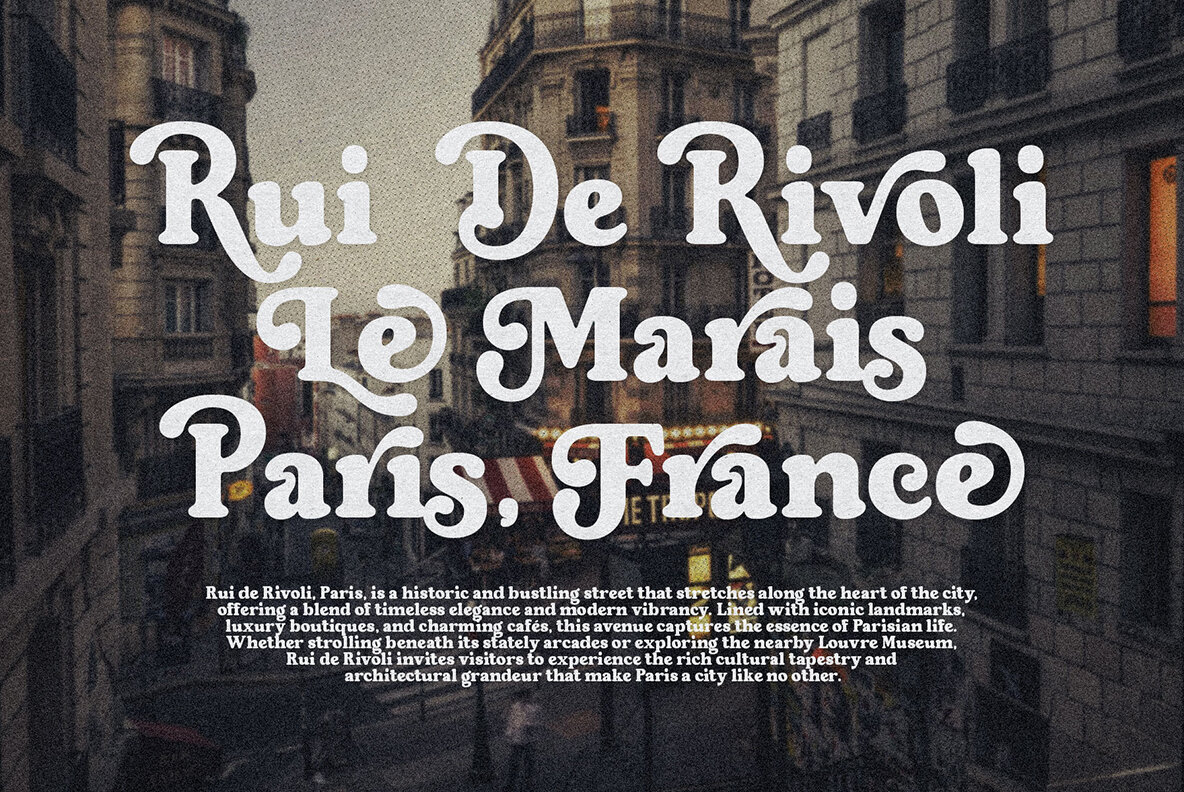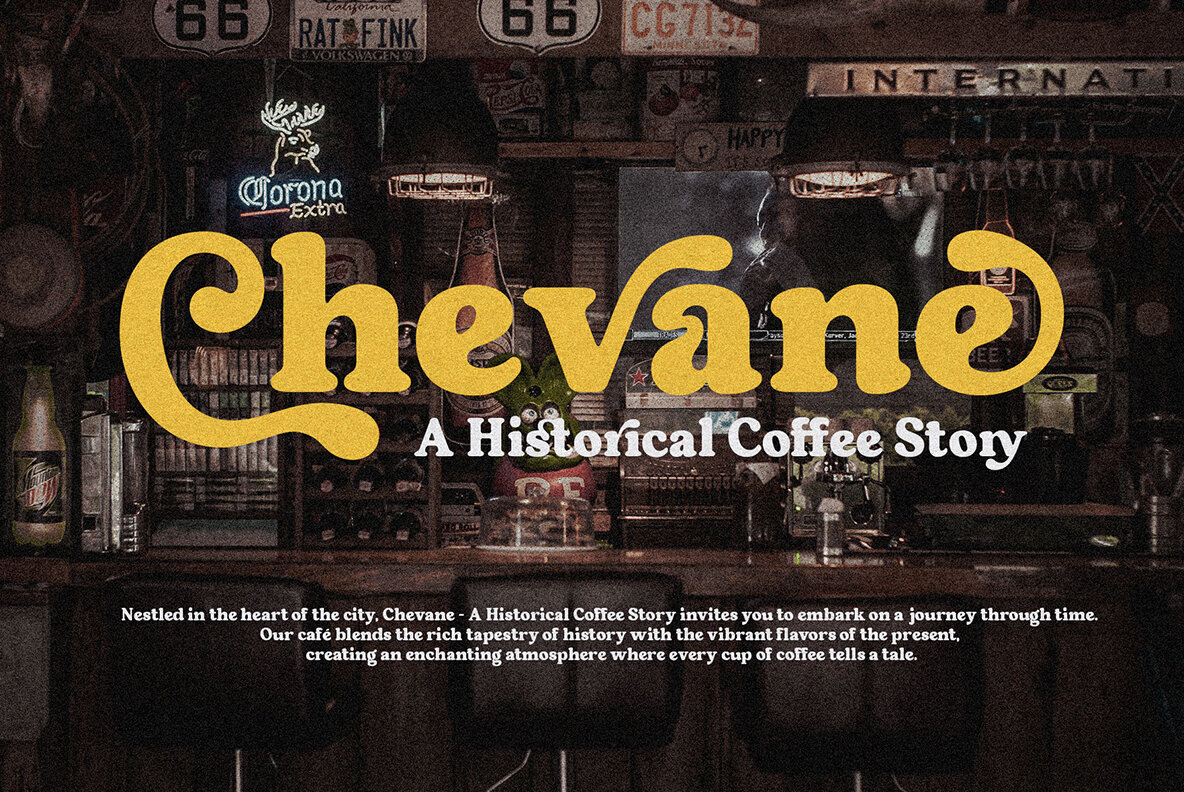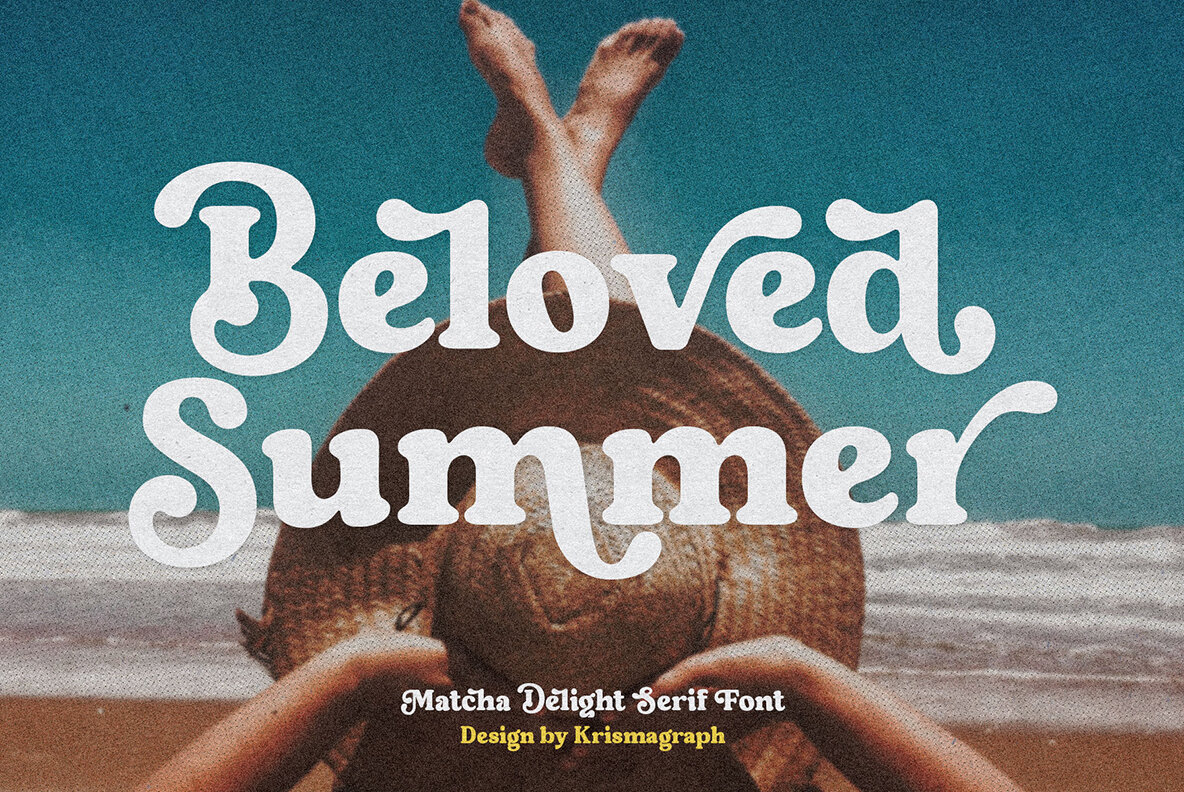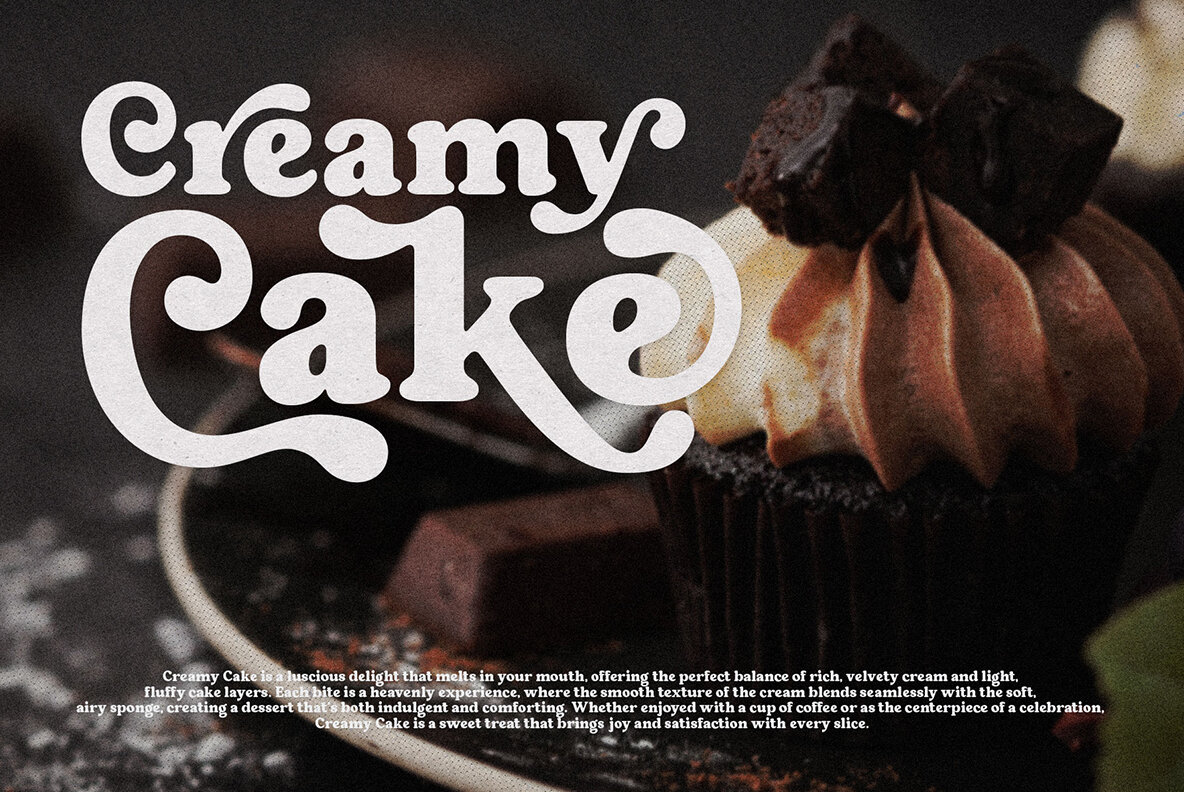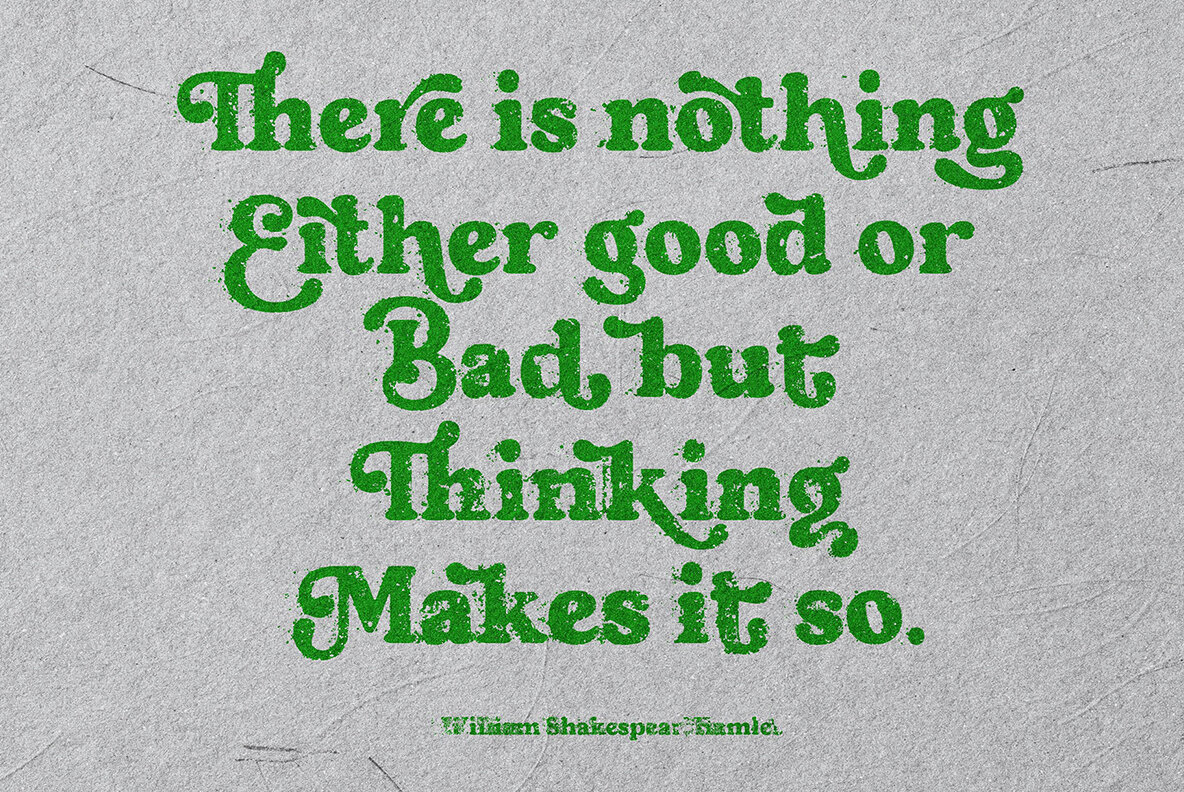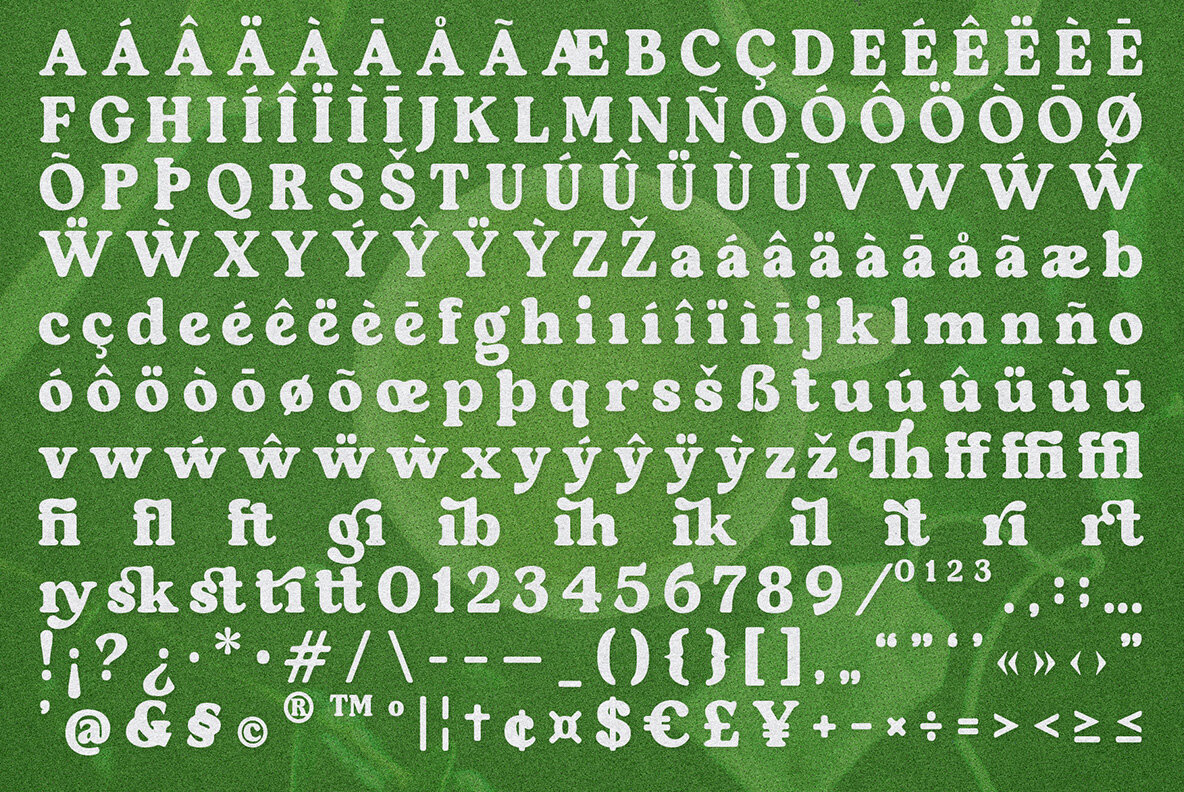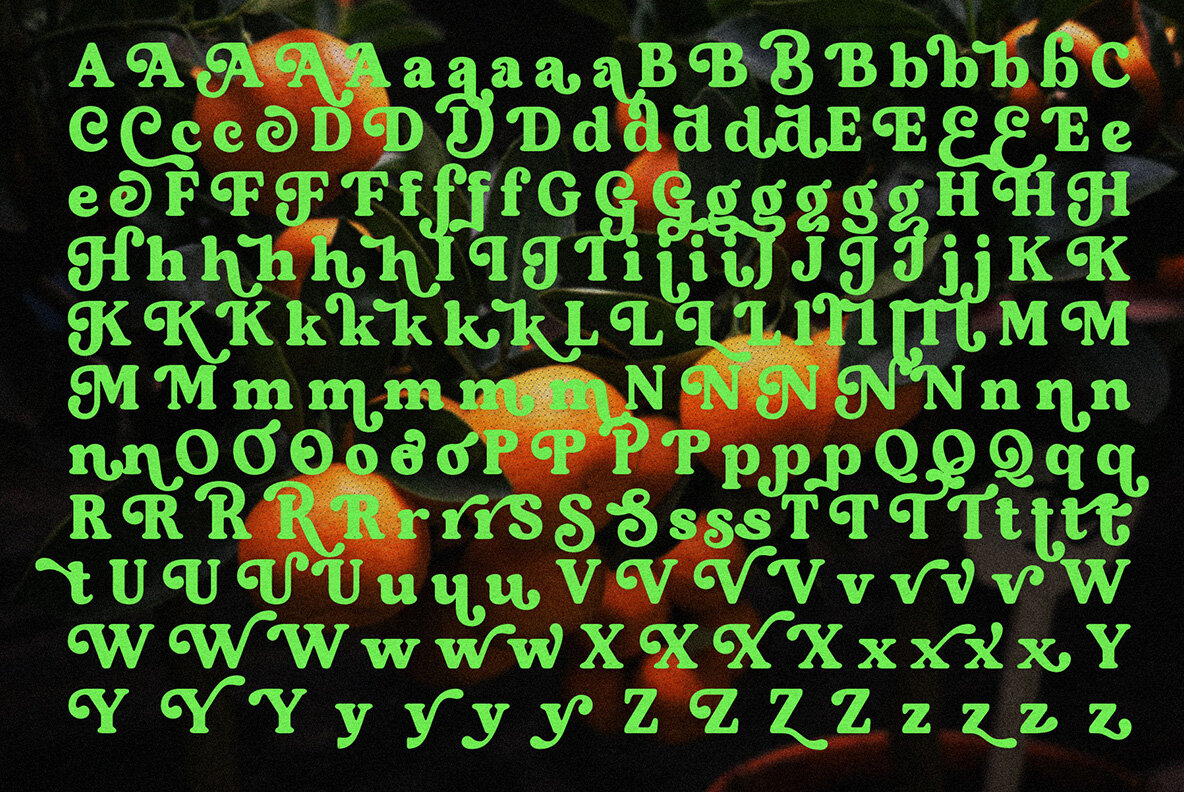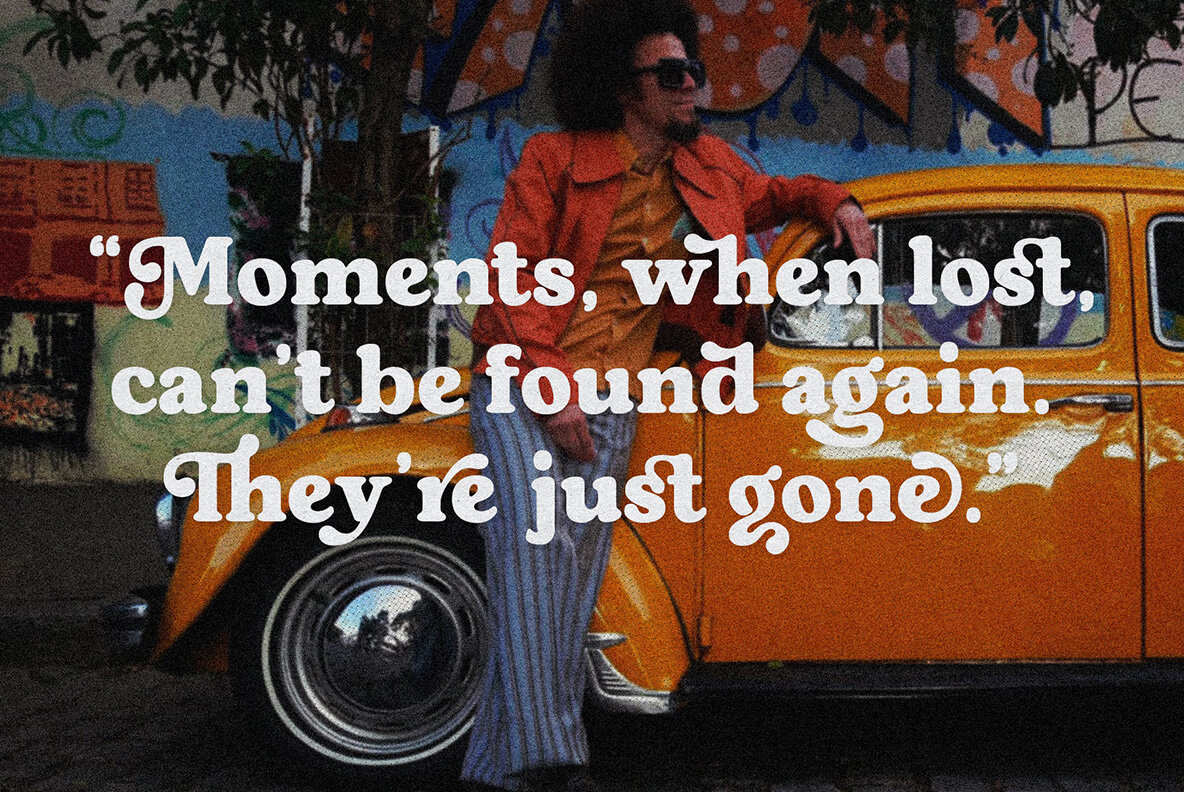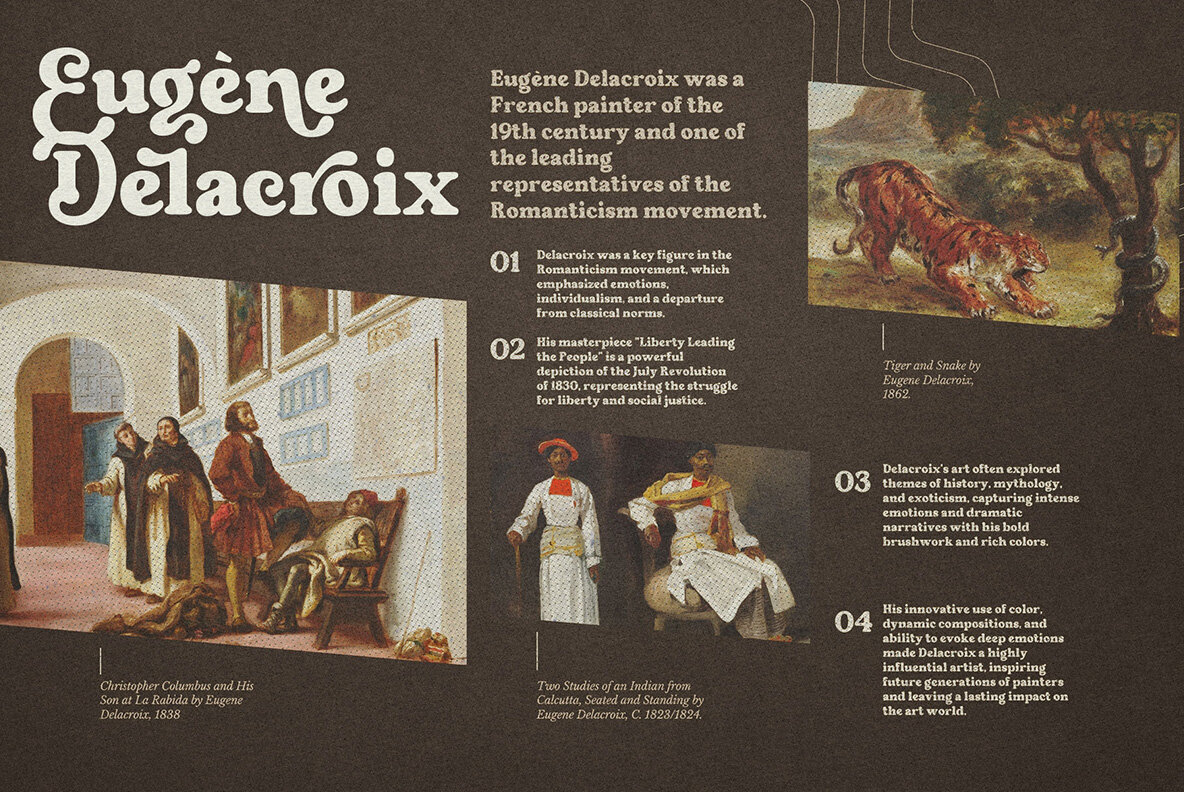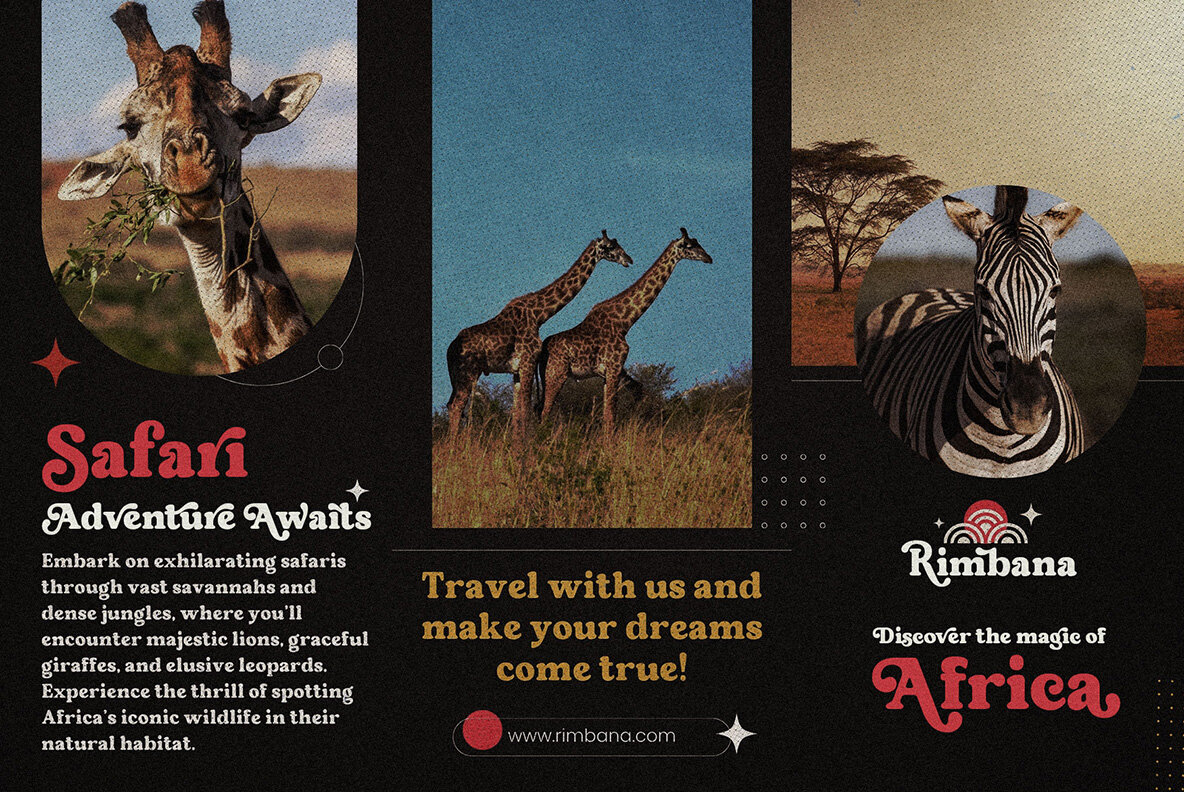
Matcha Delight Font
Matcha Delight Regular
Matcha Delight is a retro serif font that embodies charm and confidence. Its distinctive character offers a familiar, nostalgic feel with each use. Designed for versatility, Matcha Delight includes Stylistic Alternates, Discretionary Ligatures, and a range of extra alternates accessible via OpenType features or the Character and Glyphs window. Its PUA encoding ensures easy access to additional glyphs in most graphic design software.
Ideal for modern graphic design projects, Matcha Delight excels in logos, packaging, restaurant branding, and other display uses. It creates a striking impact in headlines or shorter texts, adding a timeless yet contemporary flair to your designs.